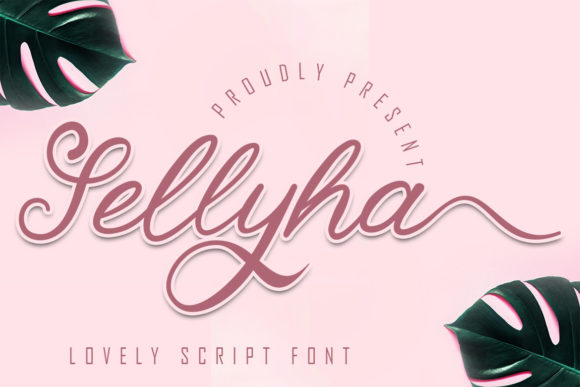
Unleash the elegance of Sellyha, a meticulously crafted script font that exudes timeless beauty and contemporary charm. Inspired by classic calligraphy, Sellyha strikes a perfect balance between thin and thick strokes, creating visual harmony and versatility for your creative projects.
Sellyha's graceful curves and impeccable form add a touch of sophistication to any design, whether you're crafting wedding invitations, branding materials, social media graphics, or personal projects. Its effortless flow and legibility make it a joy to use, enhancing the visual appeal of your words and captivating your audience.
With Sellyha, you can effortlessly elevate your designs, transforming them into works of art. Its versatility knows no bounds, seamlessly adapting to various styles and aesthetics. From modern and minimalist to vintage and whimsical, Sellyha effortlessly blends in, adding a touch of elegance and charm wherever it's used.
Experience the ease of use with Sellyha's PUA encoding, allowing you to effortlessly access all of its glyphs and swashes. Unleash your creativity and explore endless possibilities, crafting stunning designs that leave a lasting impression.
Sellyha is not just a font; it's an invitation to embark on a journey of artistic expression. Its timeless appeal ensures that your designs will stand the test of time, capturing the hearts and minds of your audience. Embrace the beauty of Sellyha and watch your creative visions come to life with grace and elegance.